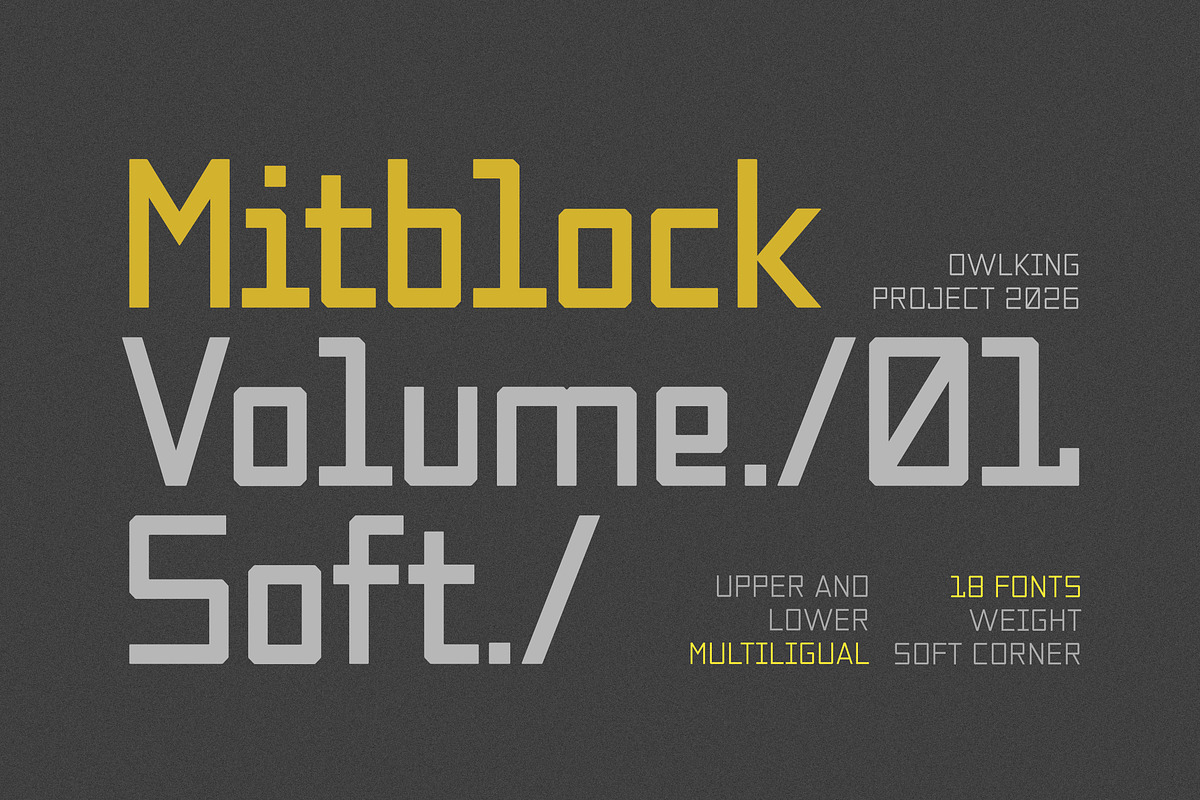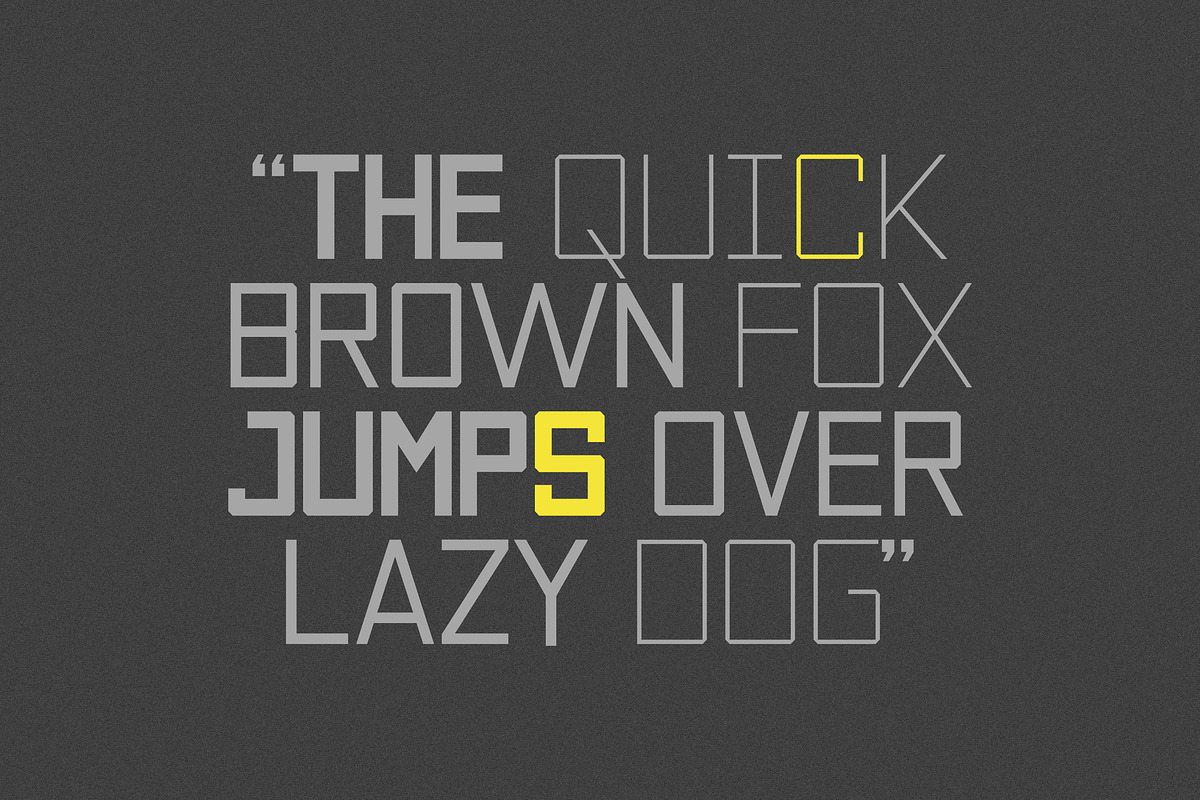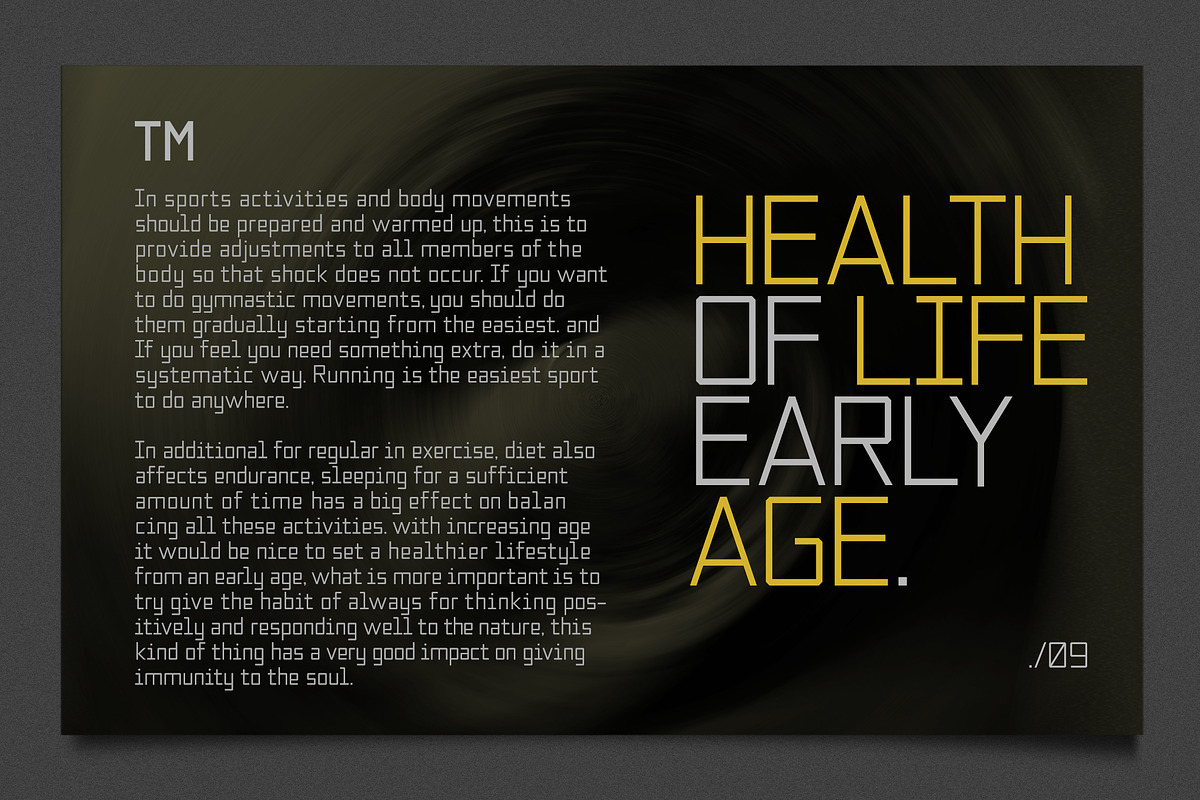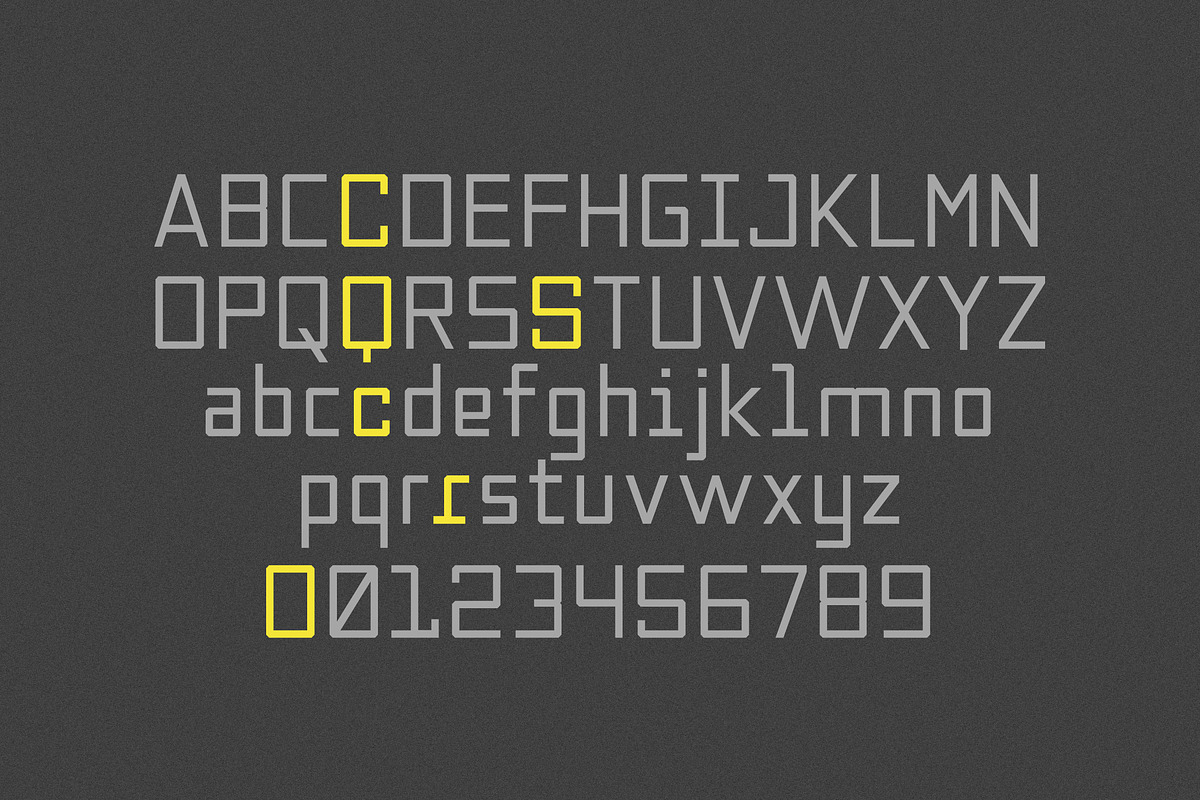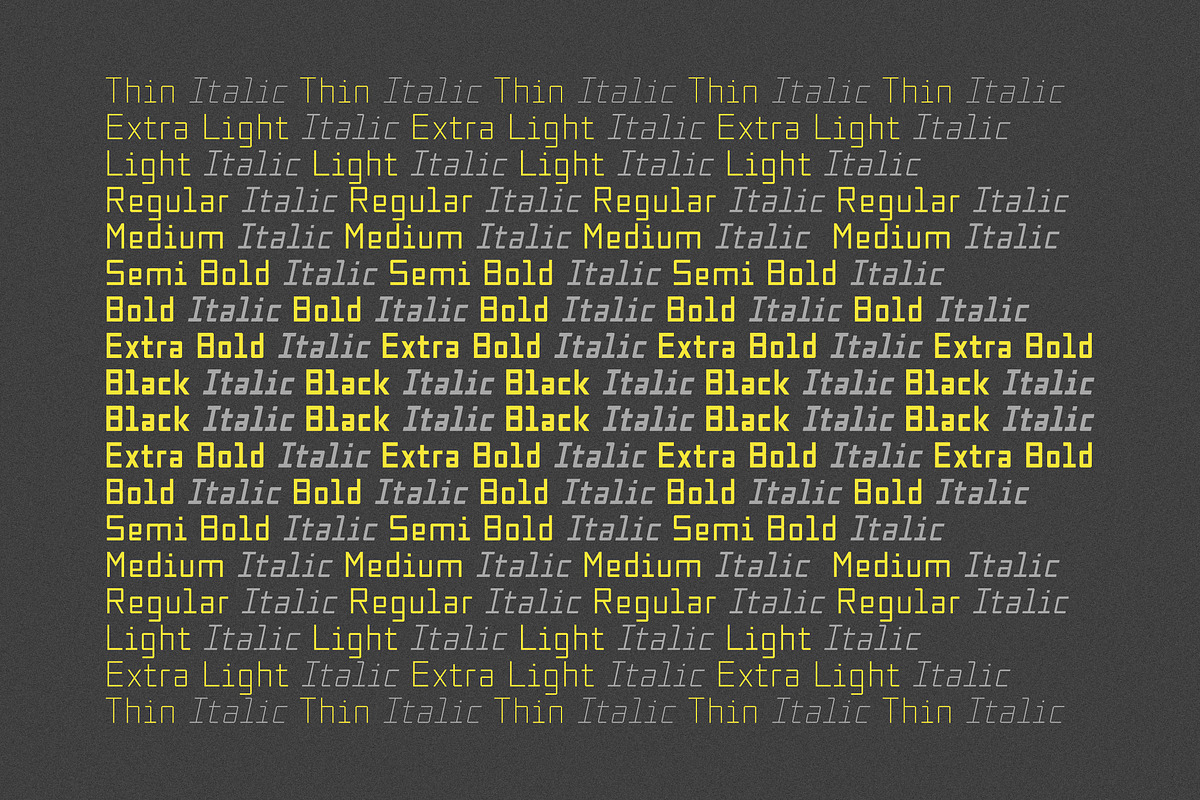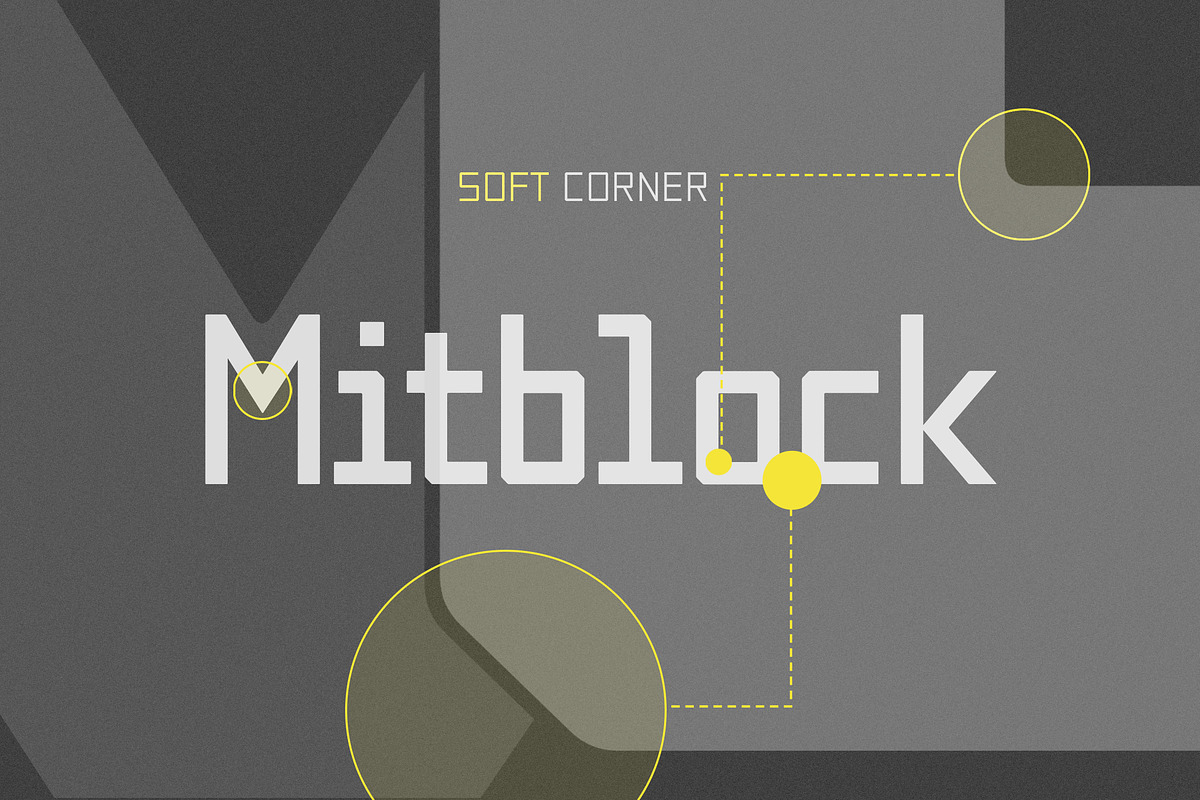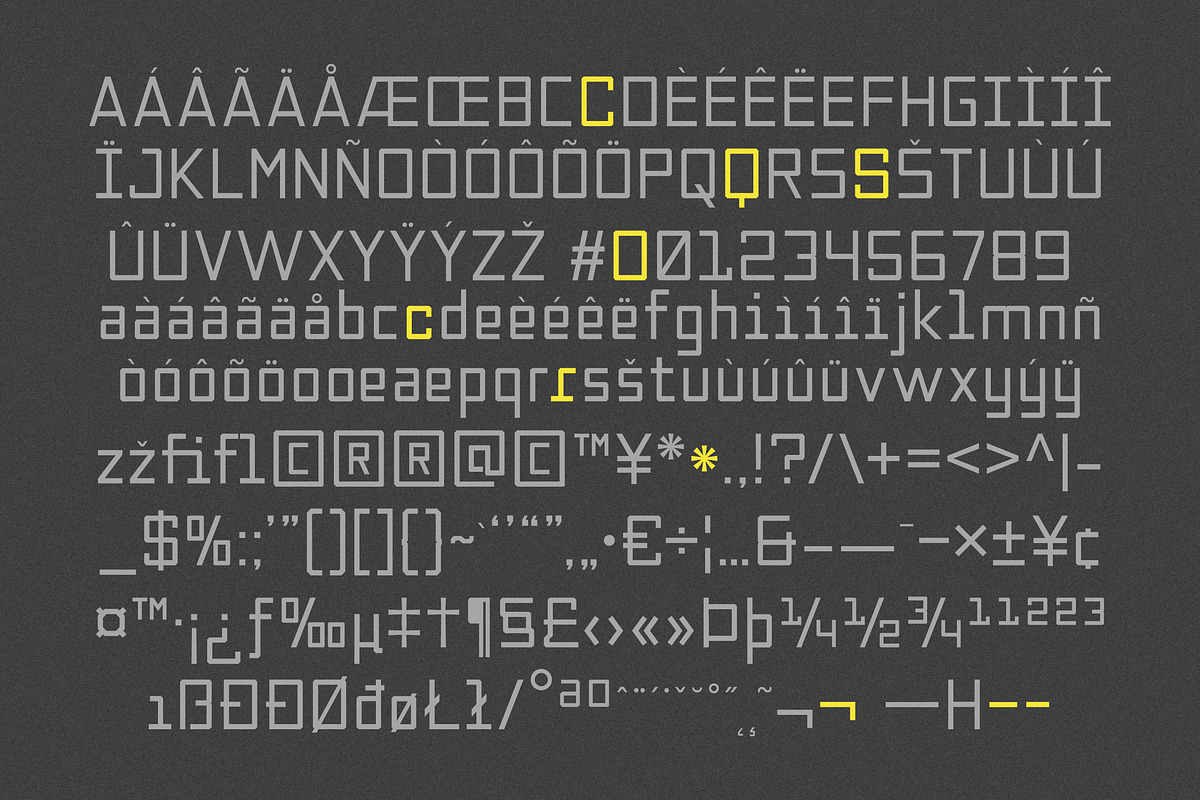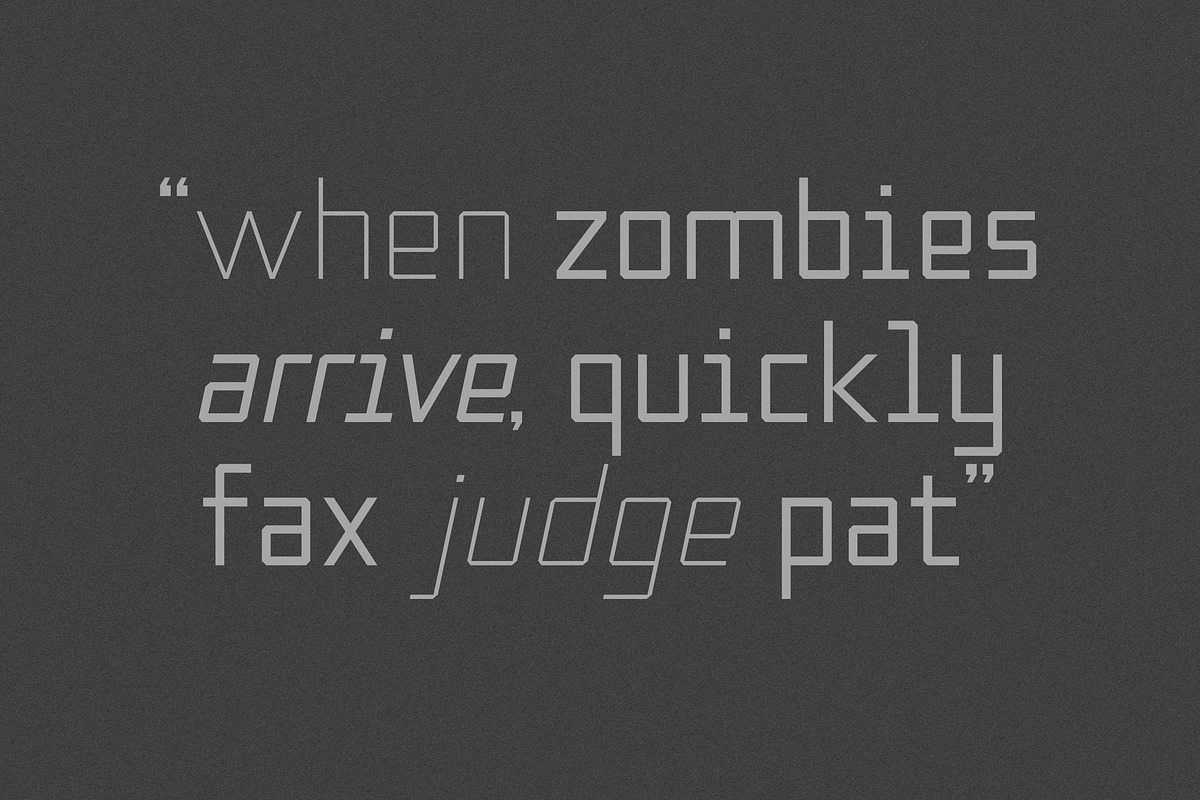
Mitblock
Mitblock & Mitblock Vol 01
Modern Smooth Geometric Font Family
Introducing Mitblock Volume 01, the next evolution of our signature geometric sans-serif family.
The original Mitblock (Sharp Version) features razor-sharp, uncompromising corners designed specifically to maximize visual tension and weight.
The minimal soft corners are strategically engineered to prevent visual bleeding or harsh aliasing when rendered against dark backgrounds on mobile screens, ensuring crisp legibility and a smoother user experience in Dark Mode.
Retaining the powerful, structural block construction of the original, this version introduces beautifully smoothed and rounded corners, seamlessly blending technical precision with a refined, streamlined, and aerodynamic aesthetic.
As shown in Mitblock the subtle rounding of the edges gives the font a more approachable yet highly sophisticated industrial and sci-fi look. Mitblock Soft is an absolute powerhouse, offering 18 fonts across 9 meticulously balanced weights ranging from an elegant Thin to a commanding, heavy Black, each complete with its true matching Italic counterpart.